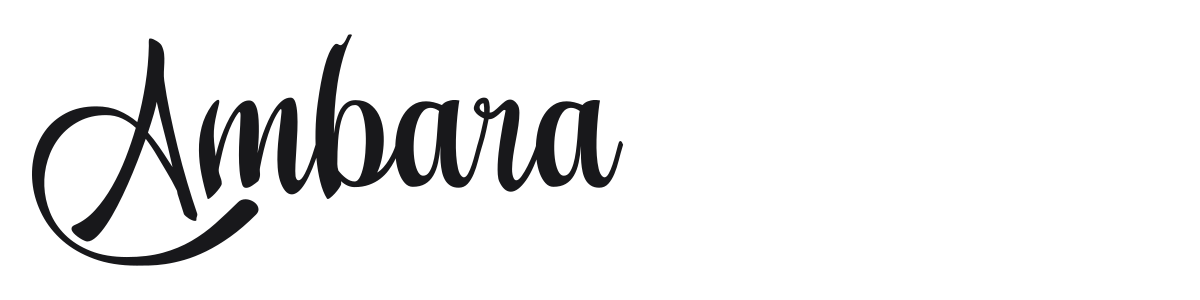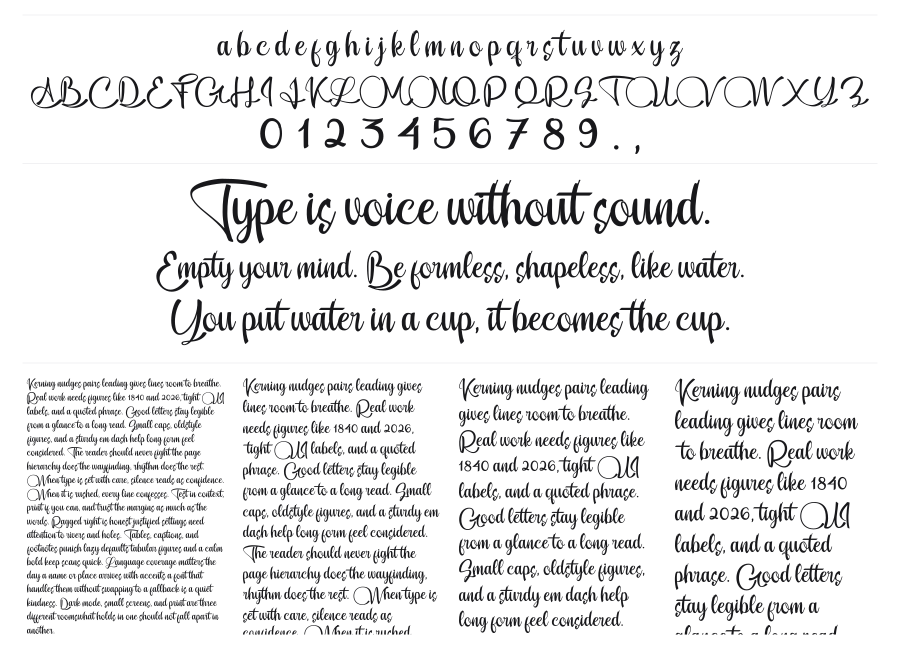
Ambara
Ambara is a bold connected brush script with dramatic stroke contrast and sweeping loops throughout. The thick downstrokes and delicate hairline upstrokes give it that hand-lettered warmth that works well on wedding invitations, artisan packaging, and lifestyle branding. It carries enough weight to anchor a headline without losing its breezy character.